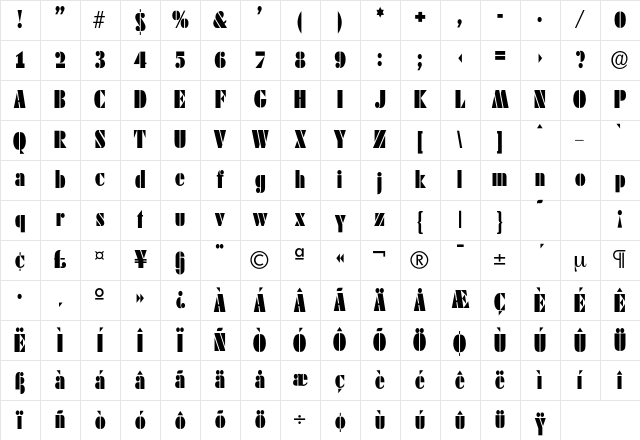
Complete Dekoblack-Condensed Regular glyph index. Displaying only characters natively supported by Dekoblack-Condensed Regular font.
Dekoblack-Condensed is a composed and adaptable typeface that performs quietly and consistently across a wide range of design contexts. Its narrow stance lets it pack a punch even in space-constrained designs.